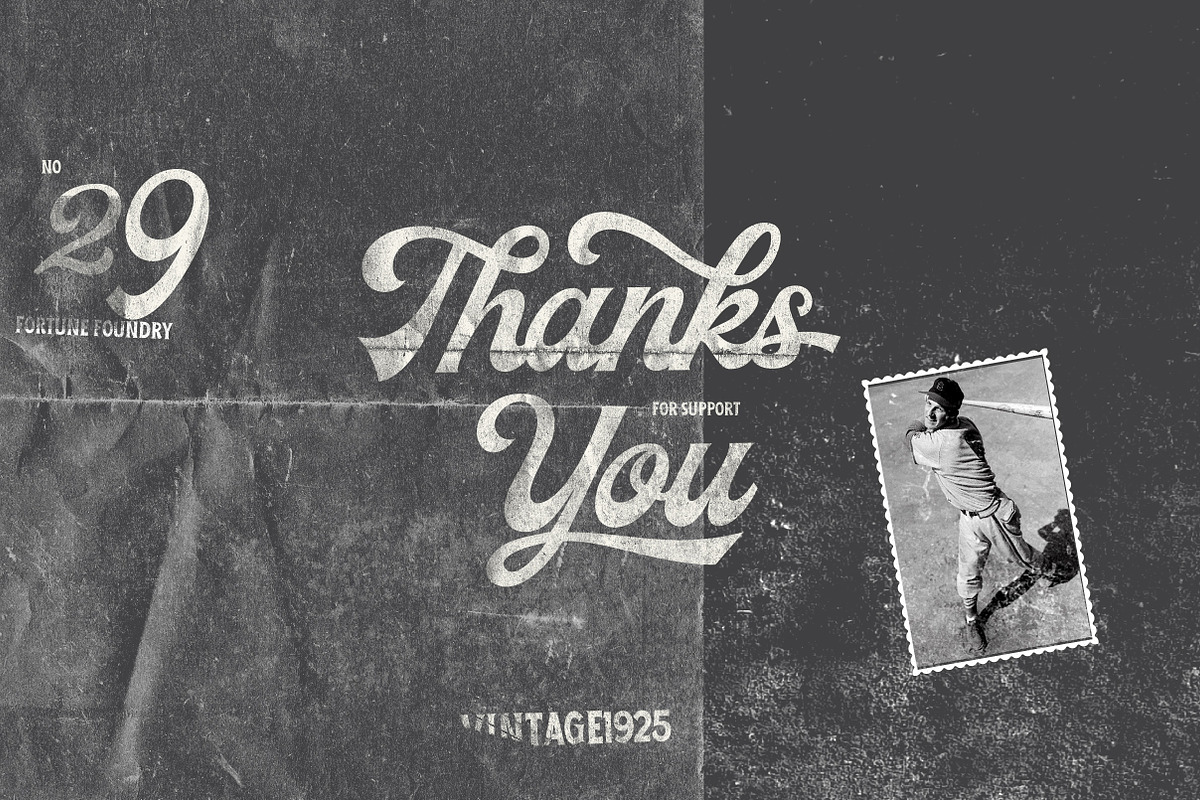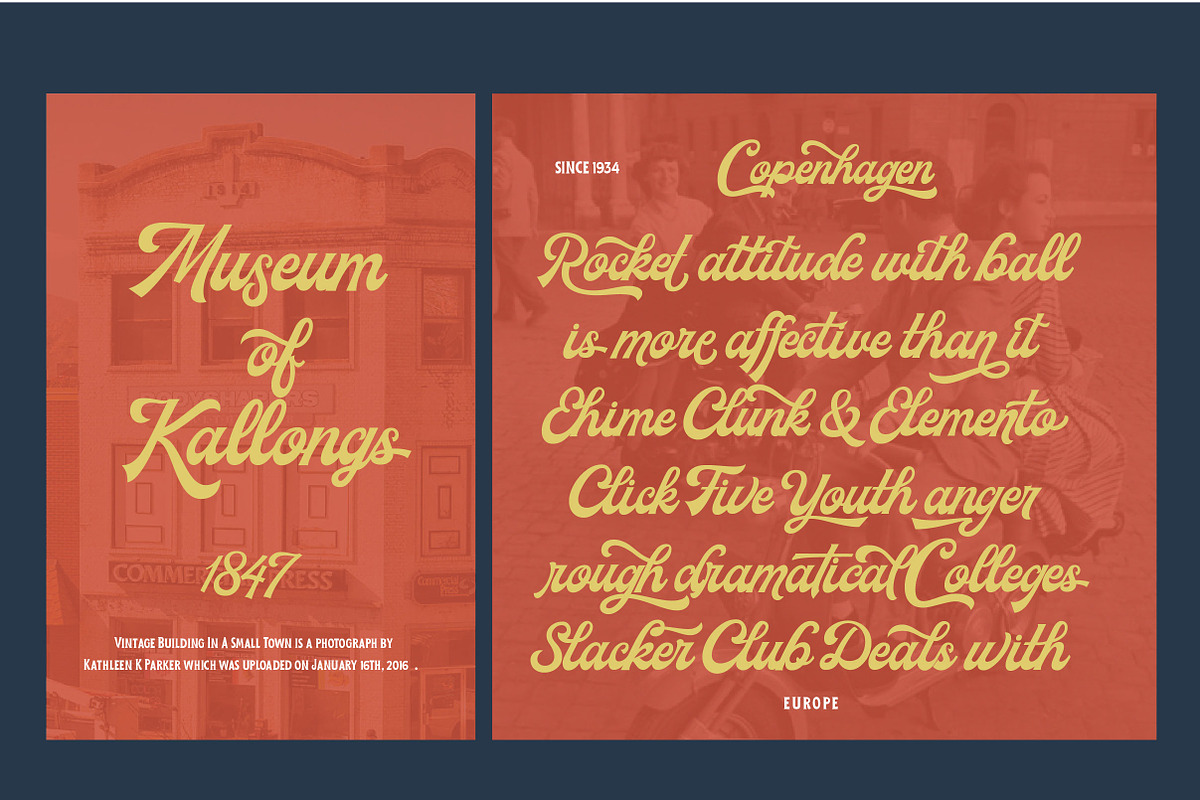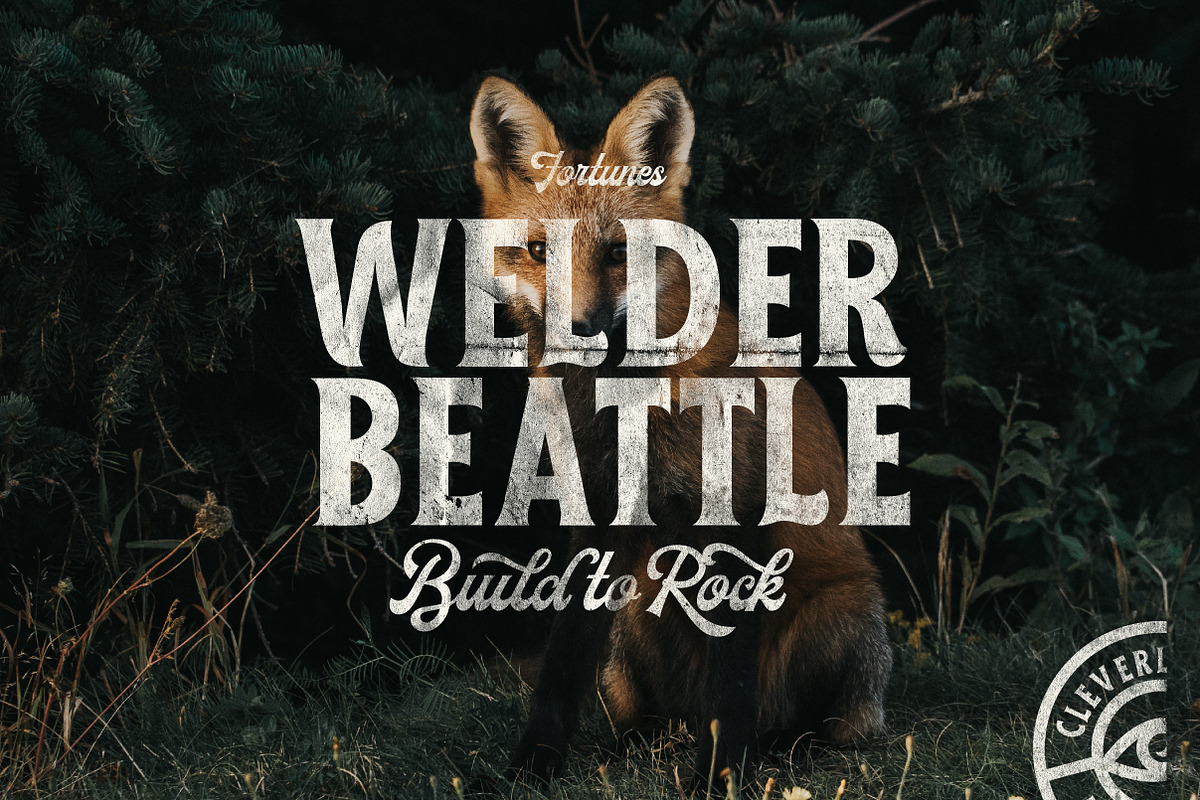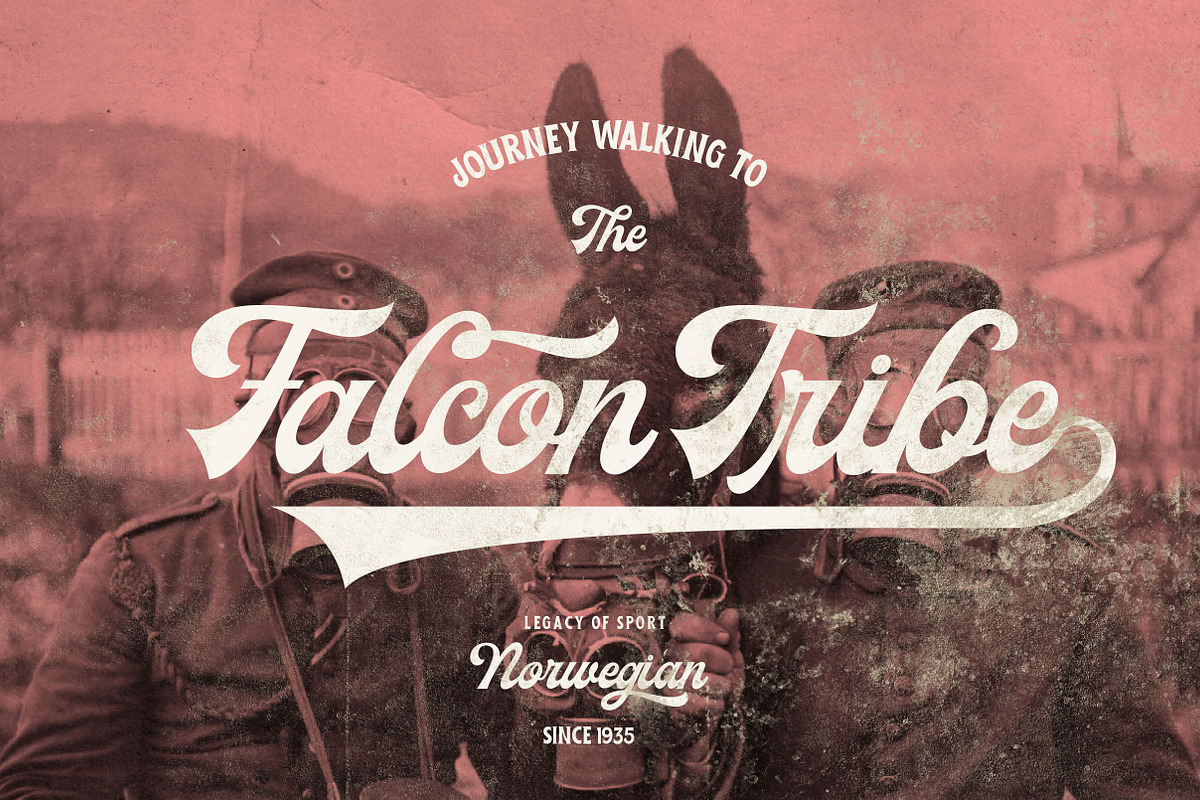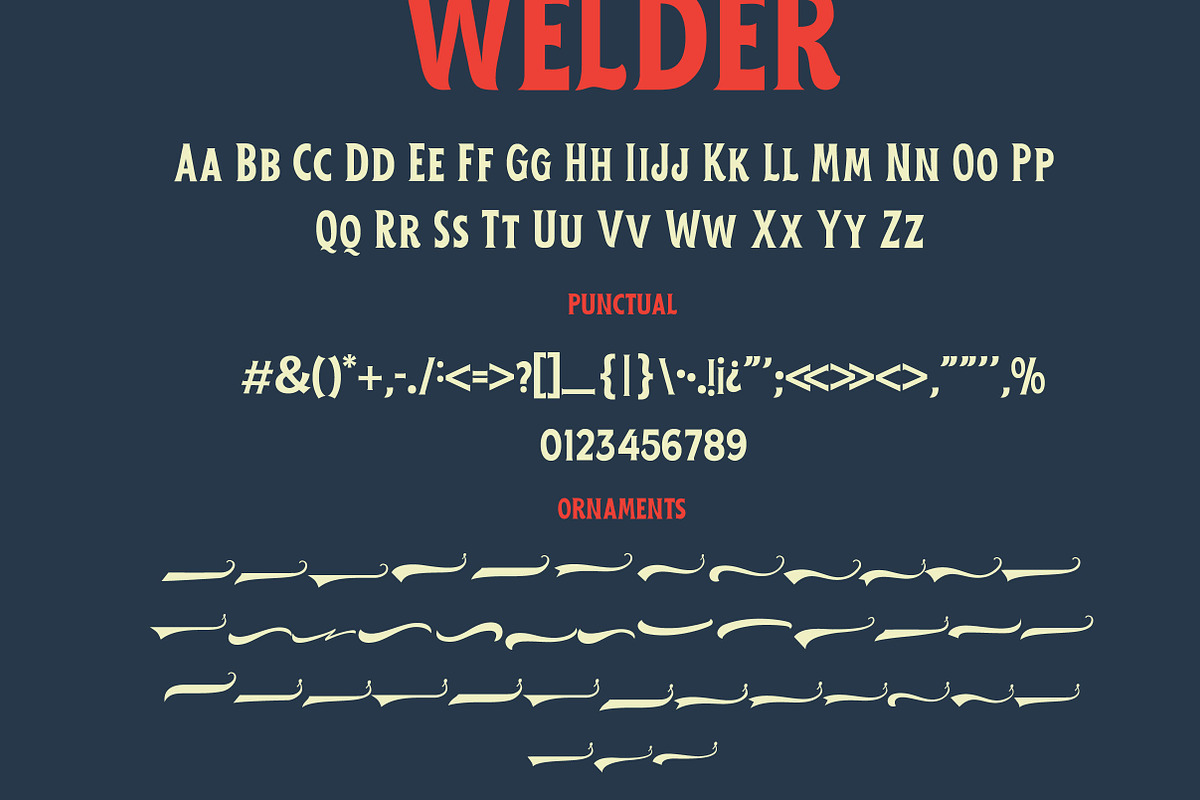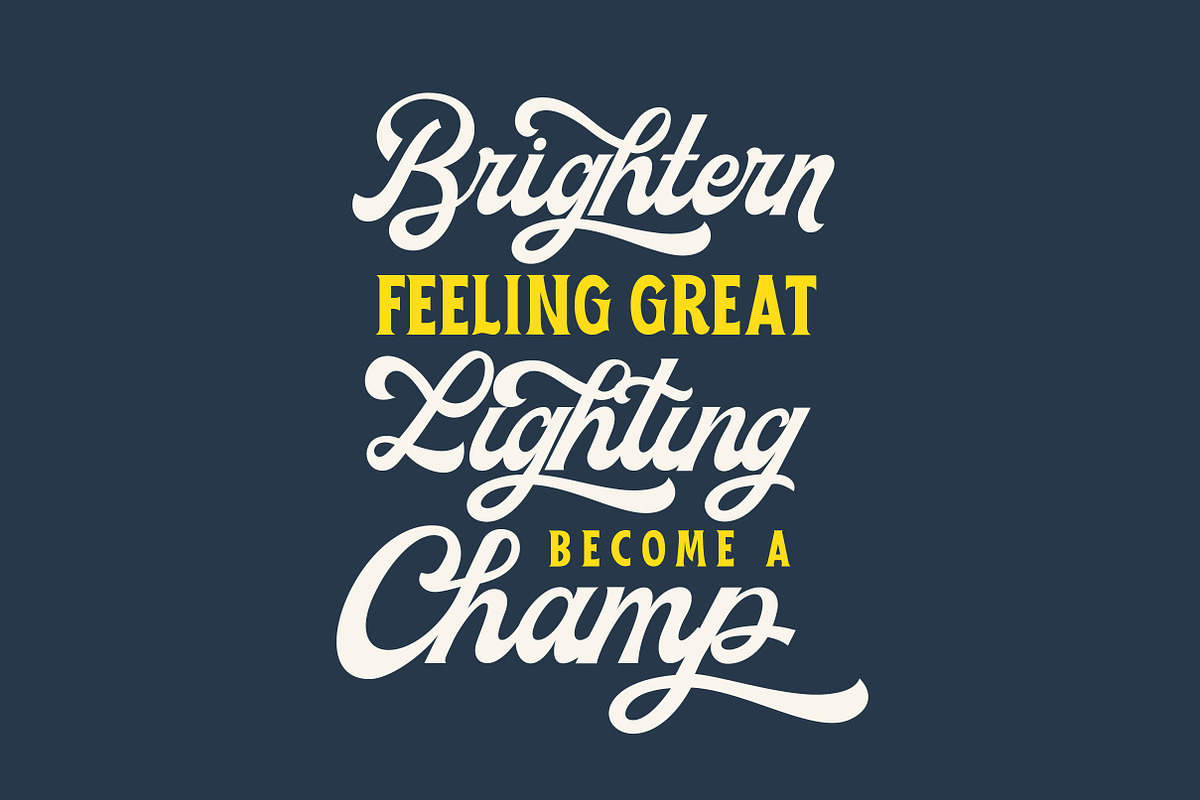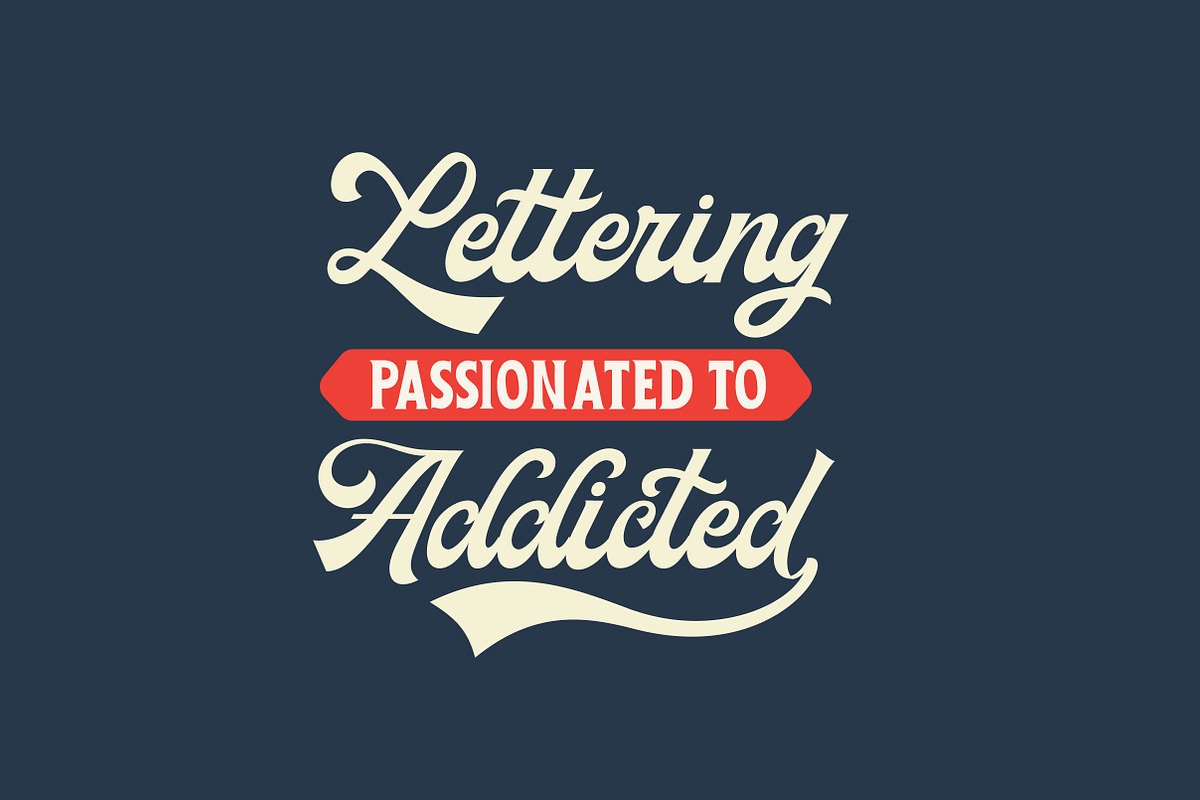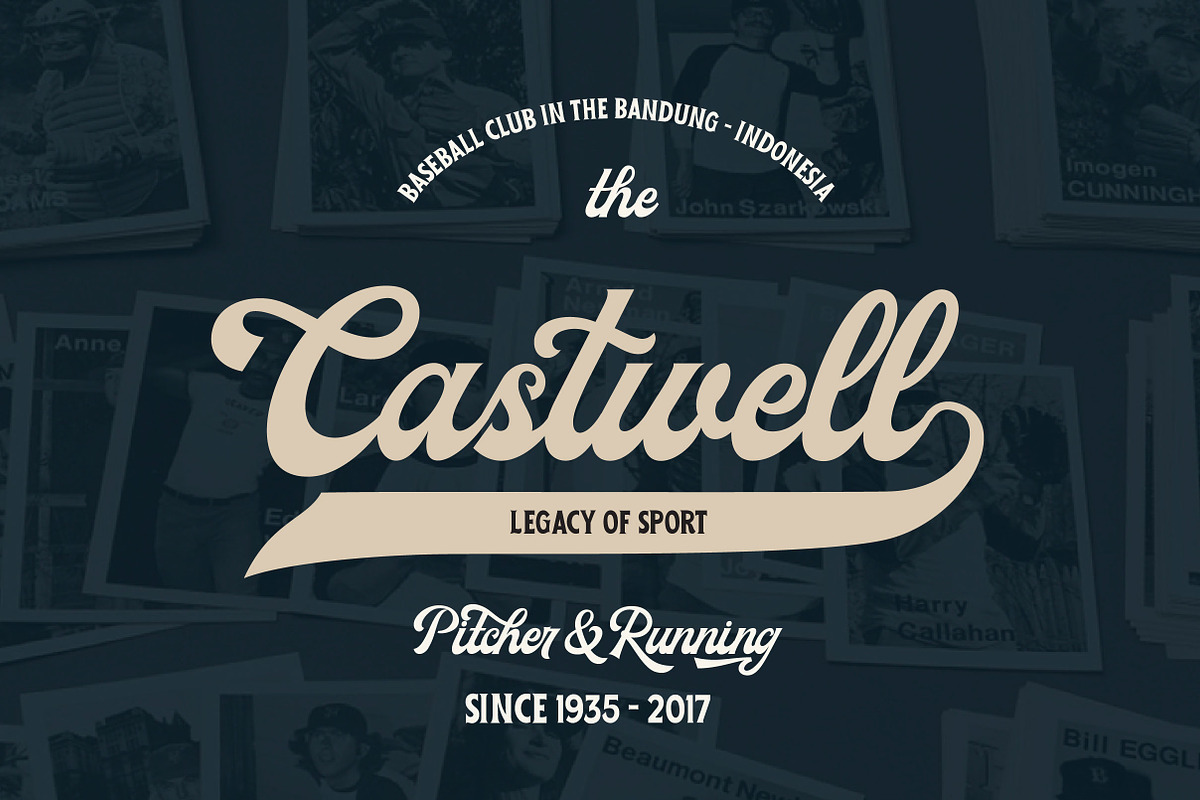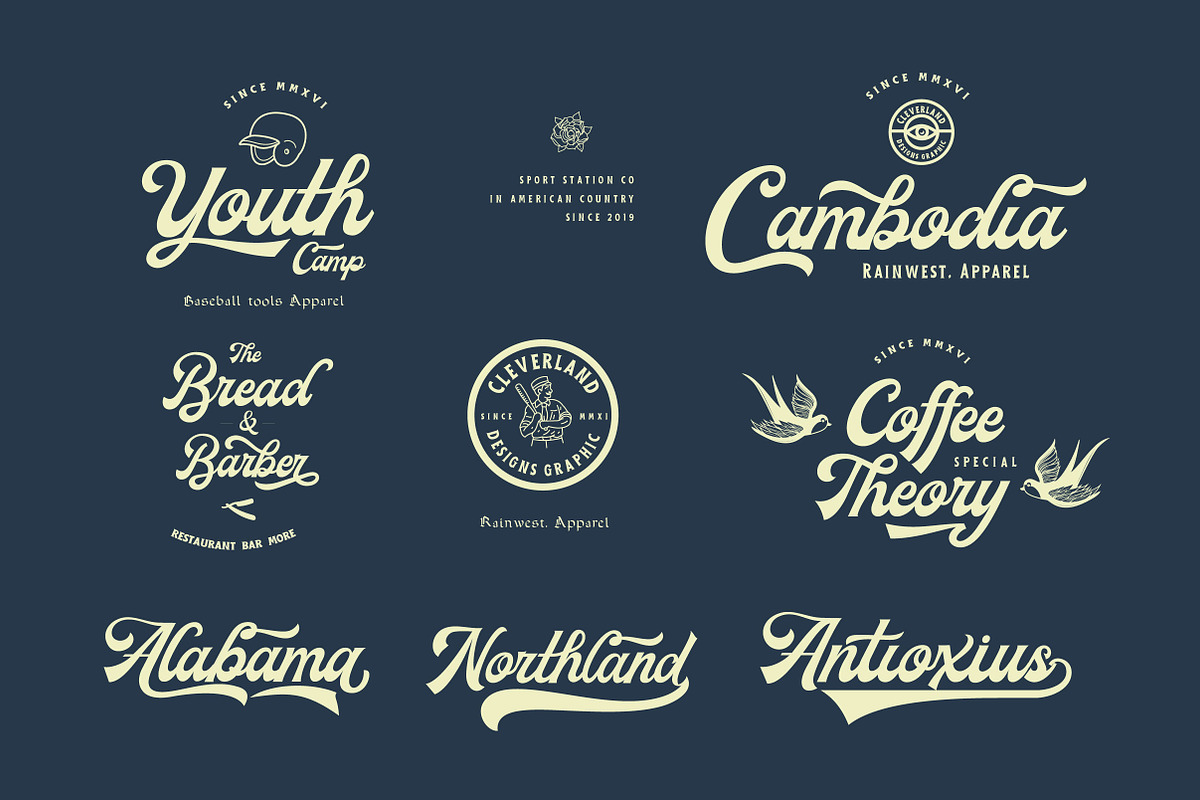
Milestone Script
Milestone inspired from Vintage baseball sport, sign painting, labeling, suitable for logo, product names packages, labels, old fashioned coffee shops, bars and everything with specific characteristics of past times. Milestone is great combine to create something good and vintage feel
INSIDE :
- Milestone Script
- Milestone Ornaments
- Welder
- Stylistic alternates
- Dlig
- Old time numbering
- SS01-SS12